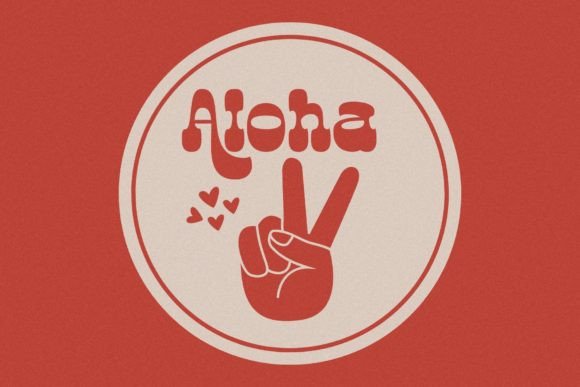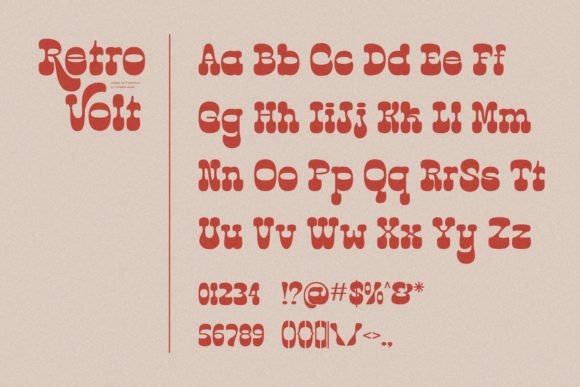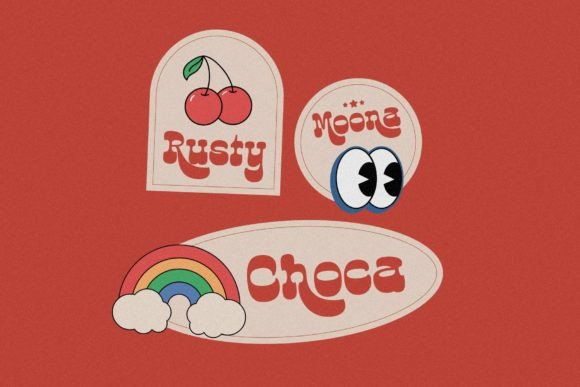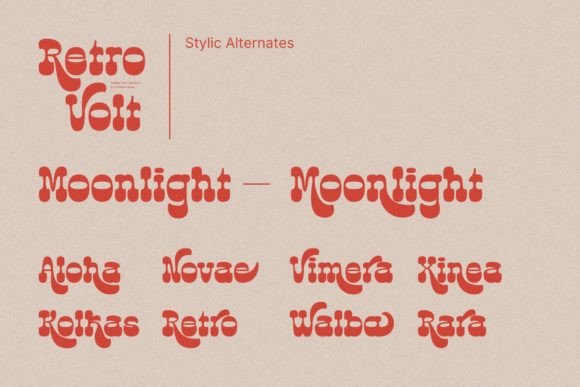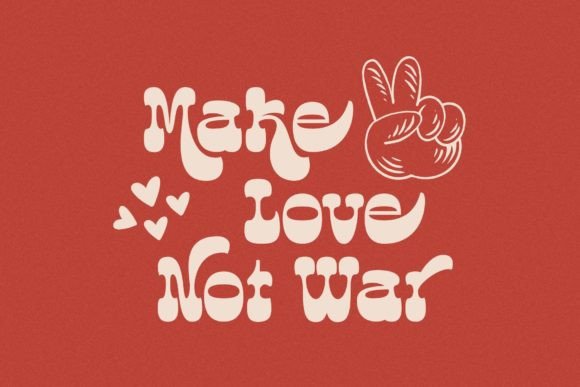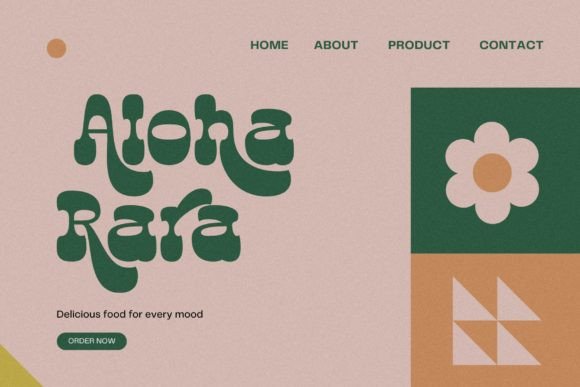
Introduction to Retro Volt Font
Have you ever stared at a vintage poster, mesmerized by the groovy typography and colorful graphics that seemed to transport you to a bygone era? That’s exactly what happens when you lay eyes on the Retro Volt Font – a fabulous display font that embodies the spirit of the 70s and 80s design era.
As designers, we’re always on the lookout for high-quality design resources that can elevate our creative projects and make them stand out. That’s where Retro Volt Font comes in – a free download that’s perfect for logos, branding, social media posts, advertisements, and product designs. With its beautiful typographic harmony and funky vibe, this font is a must-have for anyone looking to add some retro flair to their work.
Key Features of Retro Volt Font
- Unique blend of retro and futuristic elements, perfect for adding a touch of nostalgia to modern designs
- Includes a variety of styles and weights to suit different design needs, from bold and playful to elegant and sophisticated
Honest Review: Retro Volt Font
I recently had the chance to work with the Retro Volt Font, and I must say, it’s been a game-changer for my creative projects. As a designer, I’m always on the lookout for high-quality design resources that can elevate my work, and this font definitely delivers.
- Unique and stylish design: The Retro Volt Font has a distinctive look that’s perfect for adding a touch of nostalgia to your designs.
- High-quality design: The font is well-crafted and looks great at various font sizes.
- Limited character set: While the font is perfect for most design purposes, it lacks some special characters and punctuation marks.
- Not suitable for body text: Due to its unique design, the font may not be the best choice for large blocks of text.
Overall, I’m impressed with the Retro Volt Font. Its unique design and high-quality construction make it a valuable addition to my design resource library. While it has some limitations, I think it’s an excellent choice for designers working on creative projects that require a touch of retro flair.
Retro Volt Font
To get the most out of the Retro Volt Font, use it with a transparent background to create a clean and modern look. Experiment with different font sizes and styles to add depth and visual interest to your design.
The Retro Volt Font is perfect for: